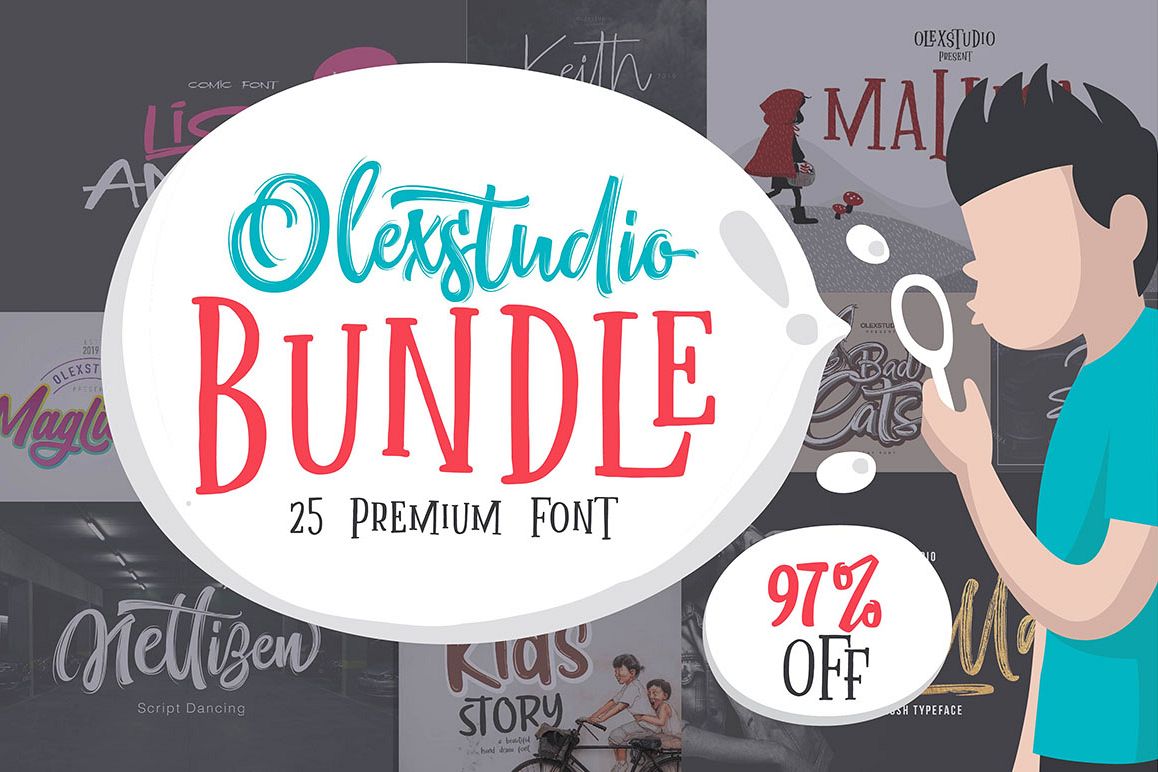
- EFRISILLA-Handbrush Script
- KEITH-signature font
- Magliette
- Badcats
- Kids Story
- RISTYNE-Script
- MALLICA Fairytale
- LISA ANGEL-comic font
- Ray Signature
- Light Shutter-SVG Font
- THE MAGNITUDE-script
- OUTSIDE-Font Duo
- NATSUKI
- KLIBEUTH-script
- NETTIZEN-Script Dancing
- Beatles Culture-FontDuo
- Monttassic-Luxury-Script-Font
- MADRID Castilla
- LAST NIGHT
- STEALING HEART-Script
- Mahligai-Script
- Southside
- Hangtuah
- COMICHATE
- The Redlight-Font-Duo